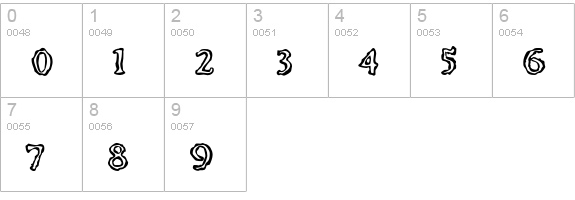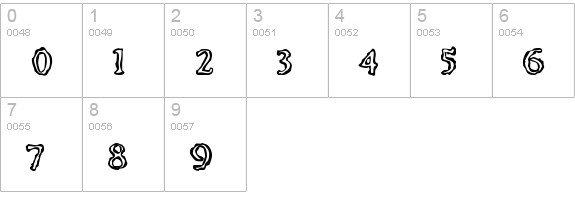
Irregular-Inline Font Details
Introducing Irregular-Inline font, a captivating and unique typeface that is sure to make a lasting impression. Designed with creativity in mind, this font features irregular, hand-drawn strokes and an edgy inline style that adds a touch of artistic flair to any project. With its irregular shapes and dynamic lines, Irregular-Inline font brings a sense of energy and spontaneity to your designs. Whether you're creating a poster, logo, or branding materials, this font will instantly grab attention and create a memorable visual experience. What makes Irregular-Inline font even more appealing is that it is freely available to download at FontsMarket.com. This means that you can easily access and use this font in your personal and commercial projects without any restrictions. The versatility of this font allows you to experiment with different styles and create truly unique and eye-catching designs. The irregularity of the letterforms in Irregular-Inline font gives it a handmade and authentic feel, making it perfect for projects that require a personal touch. Whether you're designing a greeting card, a book cover, or an invitation, this font will add a touch of personality and charm. In addition to its unique design, Irregular-Inline font also offers a wide range of characters and ligatures, allowing you to create beautiful and harmonious typography. The font has been carefully crafted to ensure legibility and readability, making it suitable for both headings and body text. So, if you're looking to add a touch of creativity and originality to your designs, look no further than Irregular-Inline font. Download it for free at FontsMarket.com and unleash your artistic potential today.